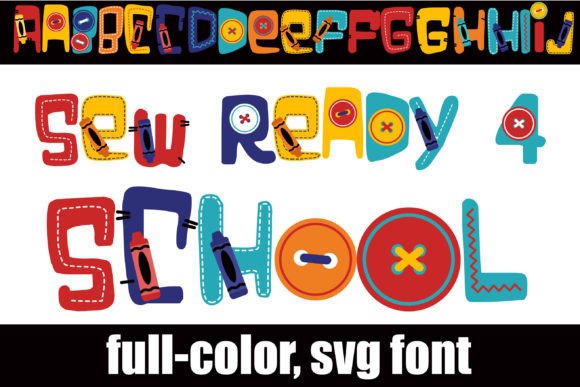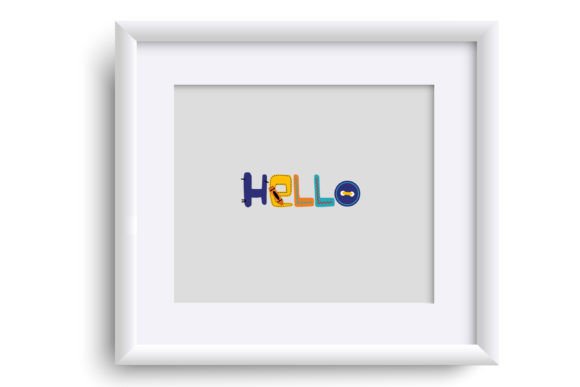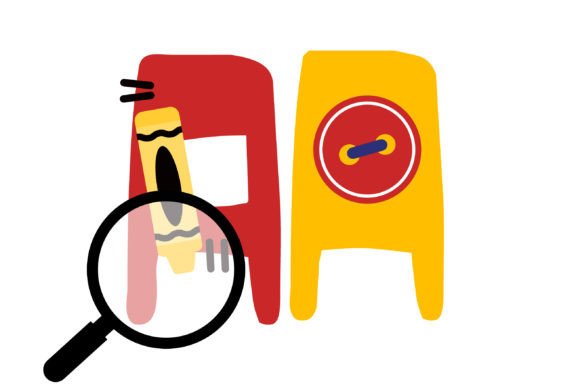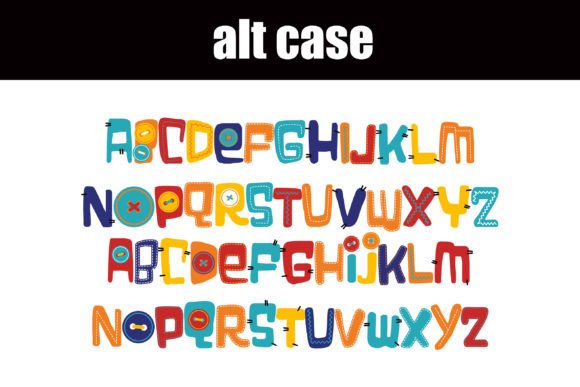
Sew Ready 4 School Font
About the Sew Ready 4 School Font
The Sew Ready 4 School Font offers a perfect balance of form and function for your design needs. This full-color font features a crafty font with crayons, buttons, and stitches throughout. There is an alt case with additional colors you can access through your system’s character map. This font works best for titles, displays, posters and more. Please note color fonts will show as black in non compatible programs. This font type is compatible with Silhouette Studio.